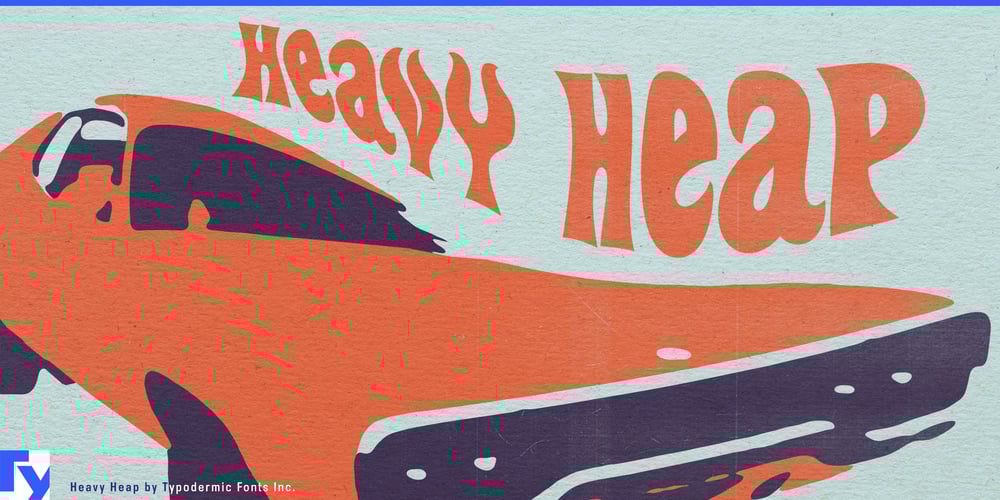
Heavy Heap
Heavy Heap font
Heavy Heap Font Family was designed by Ray Larabie and published by Typodermic. Heavy Heap contains 3 styles and family package options. Buckle up, typographic speed demons! Heavy Heap has screeched onto the design scene, leaving a trail of scorched rubber and blown minds in its wake. This is a nitro-burning, chrome-plated beast of a typeface that screams, “kustom kulture” from every eye-searing curve and flame-licked edge.Born in the white-hot furnace of 1960s counterculture, Heavy Heap is more than a font—it’s a time machine on wheels, ready to transport your designs back to an era when cars were art and every street was a potential drag strip. Each glyph looks like it was hand-painted by a master pinstriper hopped up on coffee and rock ‘n’ roll, with psychedelic swoops and swirls that’ll make your eyeballs do the Watusi. Heavy Heap comes in three brain-melting weights, letting you dial the intensity from “Sunday cruise” to “nitromethane nightmare.” Need to crunch numbers? Heavy Heap’s got your back with mathematical symbols so rad they’ll make your calculator weep with envy.But Heavy Heap isn’t just about looking pretty in the paddock. This typeface is built for speed, baby. Slap it into some warp and envelope effects, and watch it transform faster than a Funny Car off the line. It’ll bend and twist like a neon sign in a fever dream, creating layouts so dynamic they practically leap off the page and do burnouts on your retinas. From concert posters that’ll make Hendrix himself sit up and take notice, to logos that roar louder than a souped-up V8, Heavy Heap is the secret sauce for any design that needs to shift into high gear. It’s not just a font—it’s a statement, a lifestyle, a one-way ticket to Coolsville, population: you. And just when you thought it couldn’t get any more boss, Heavy Heap proves it’s got more linguistic horsepower than a polyglot drag racer. This bad boy can lay down smokin’ hot type in more languages than you can shake a dipstick at. From the autobahns of Germany to the sun-baked roads of Spain, Heavy Heap is ready to take your message on a wild linguistic joyride.So, whether you’re designing for grease monkeys or Madison Avenue suits, Heavy Heap is your ticket to the design fast lane. It’s more than a typeface—it’s a revolution on four wheels, with a supercharged attitude and enough style to make the Rat Fink green with envy. Don’t just design—design with Heavy Heap, and leave the competition choking on your dust.